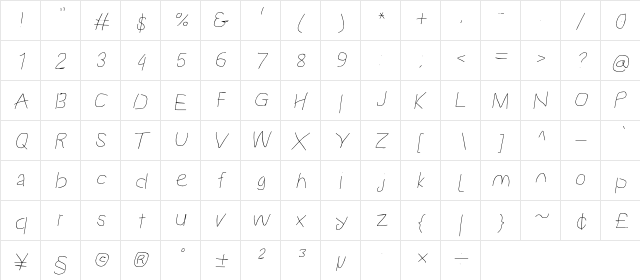
Proton BkExtIt Font Preview
Proton BkExtIt
Design Context for Proton Typeface
Proton takes a measured approach to typography — its balanced proportions and neutral character make it a reliable workhorse for both digital and print work.